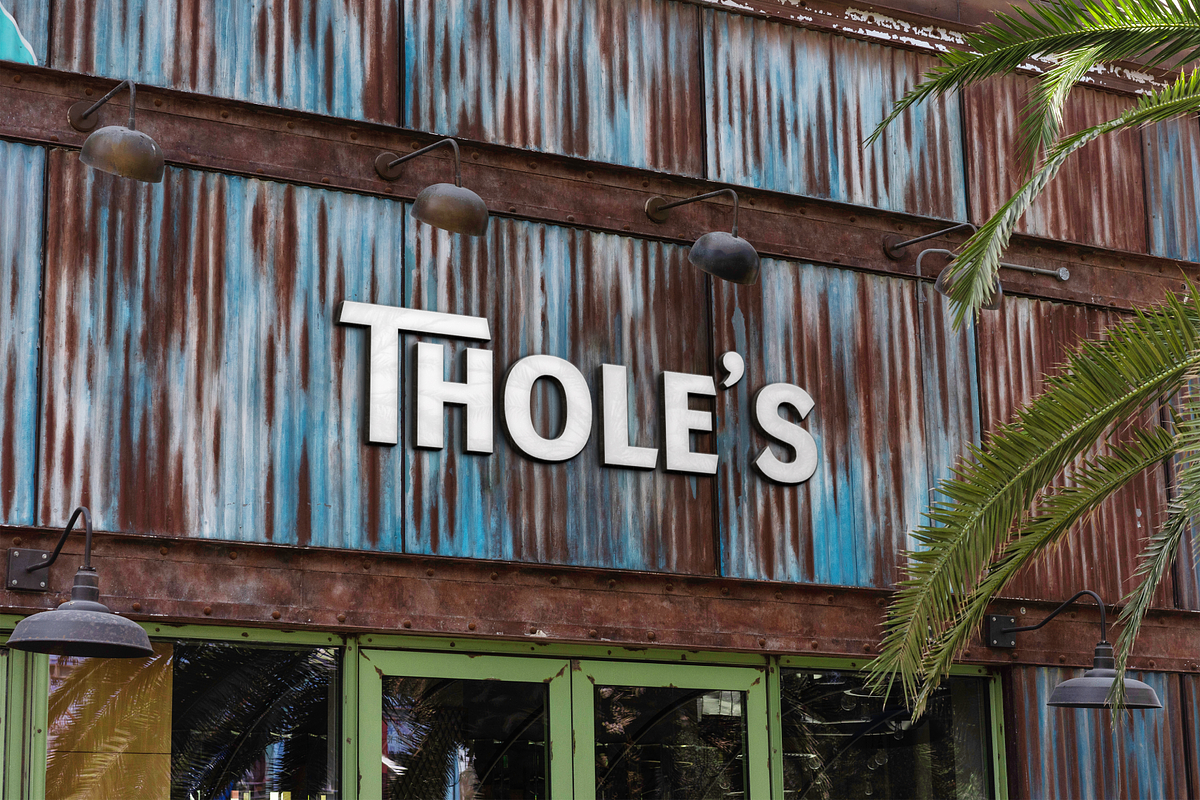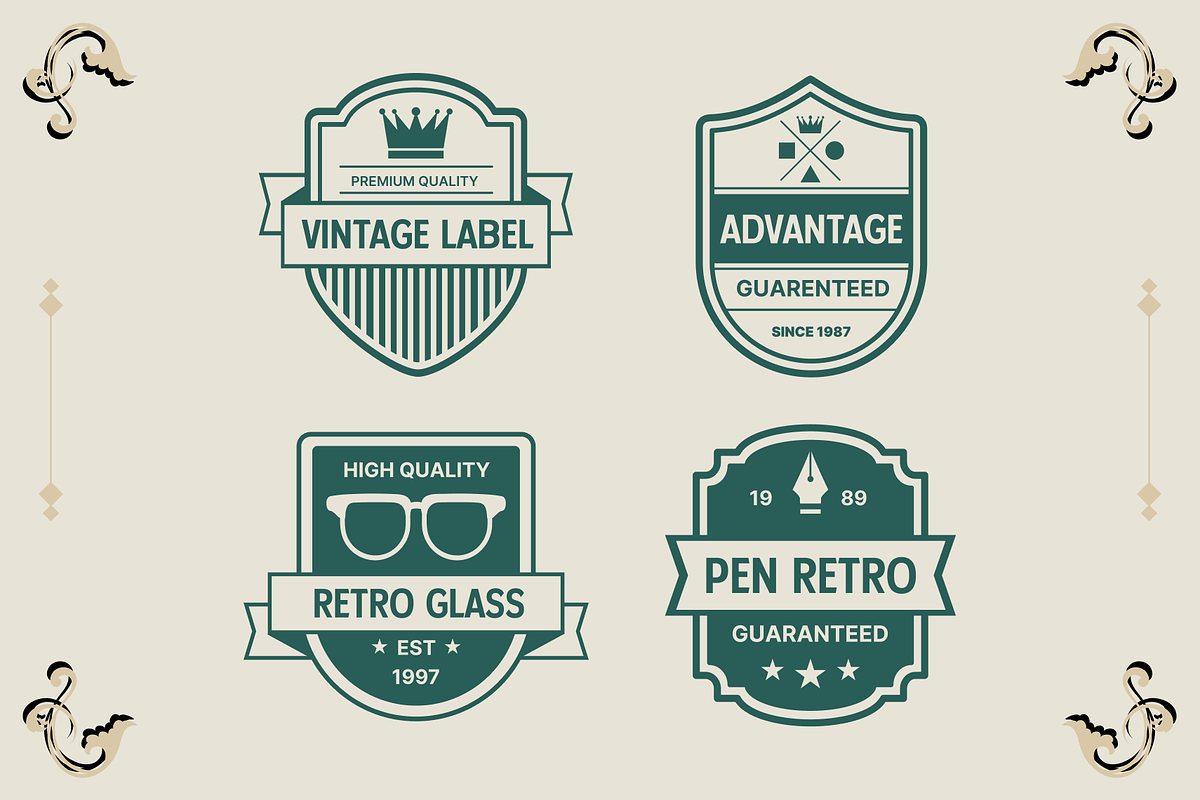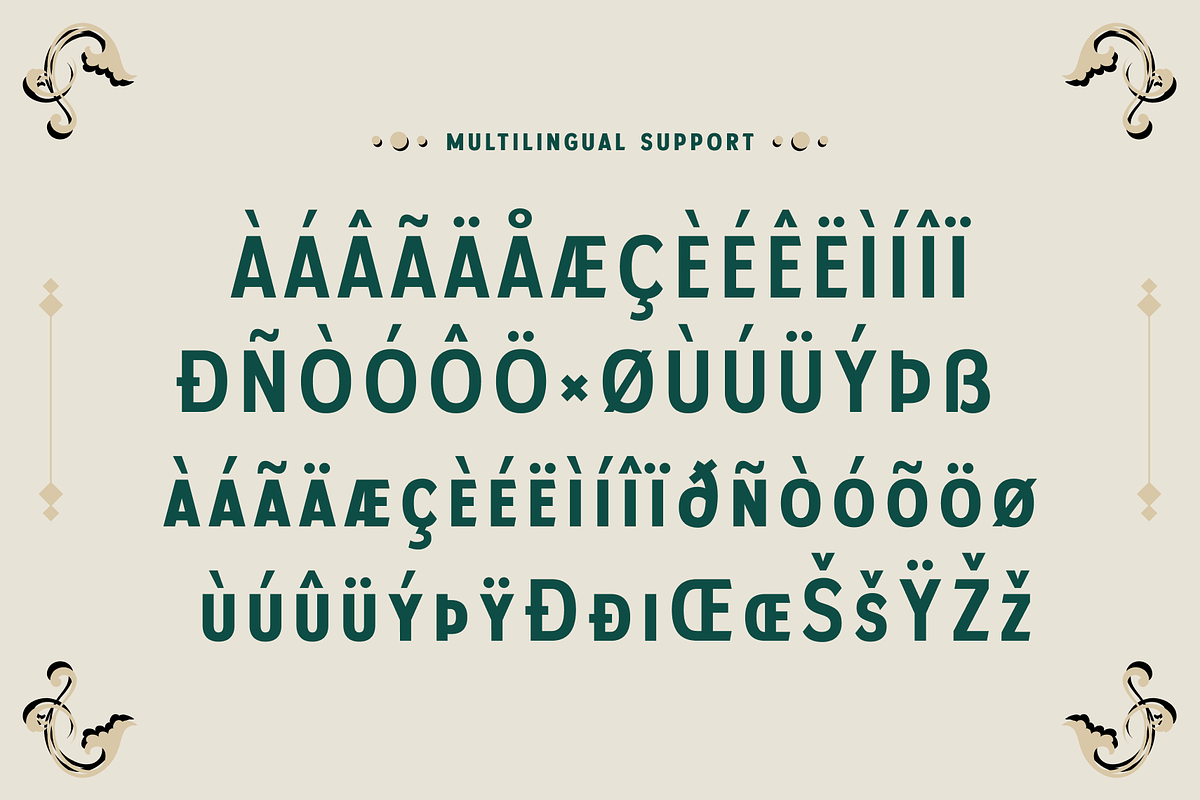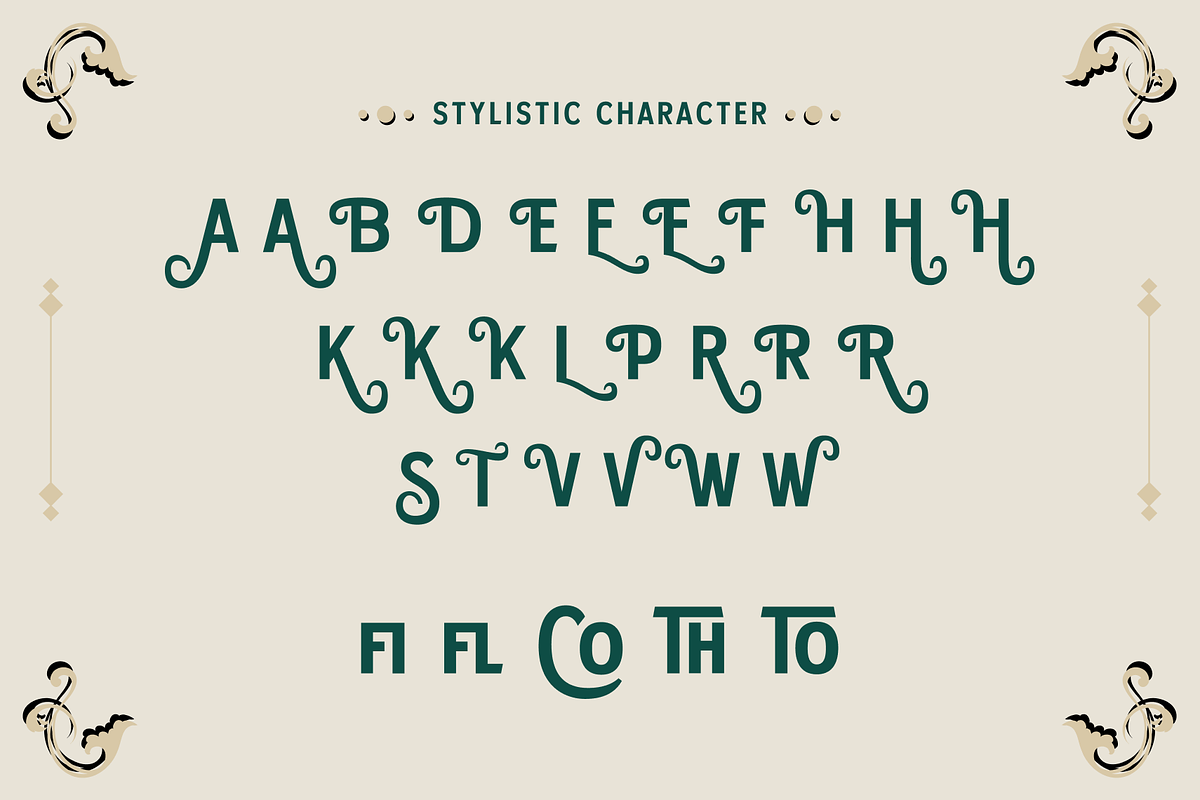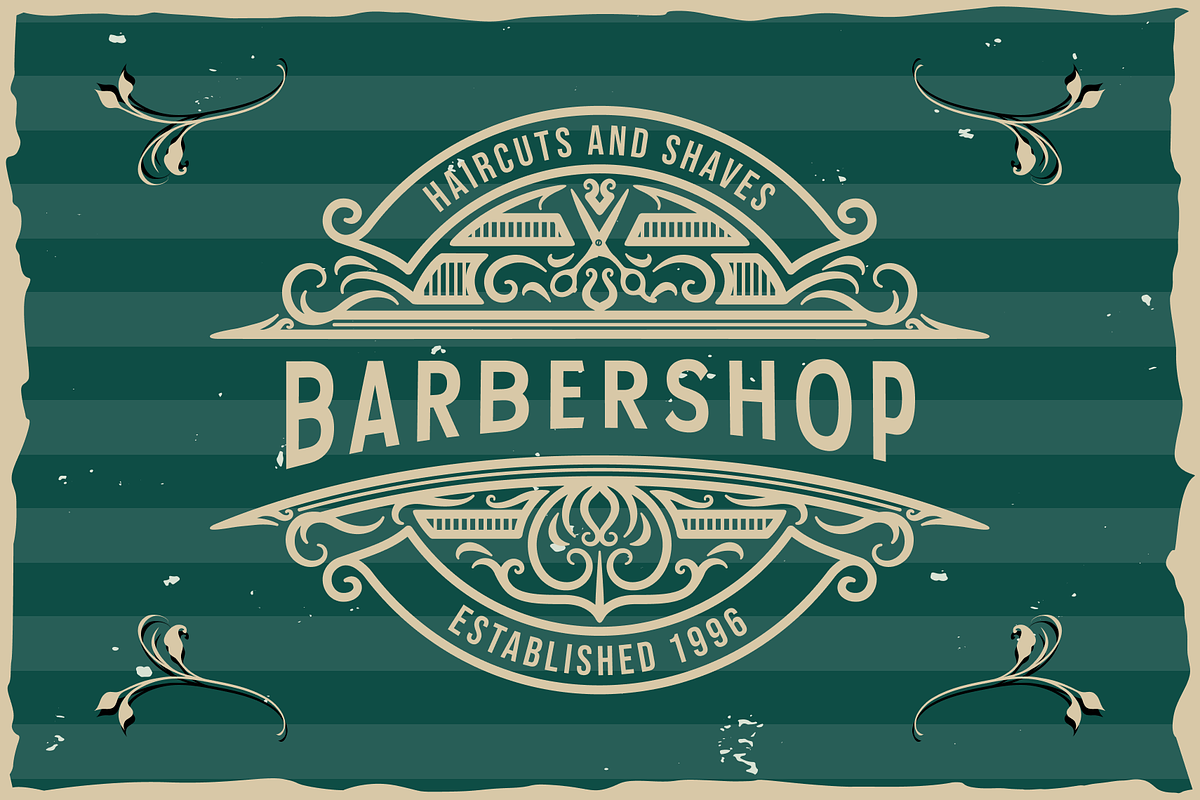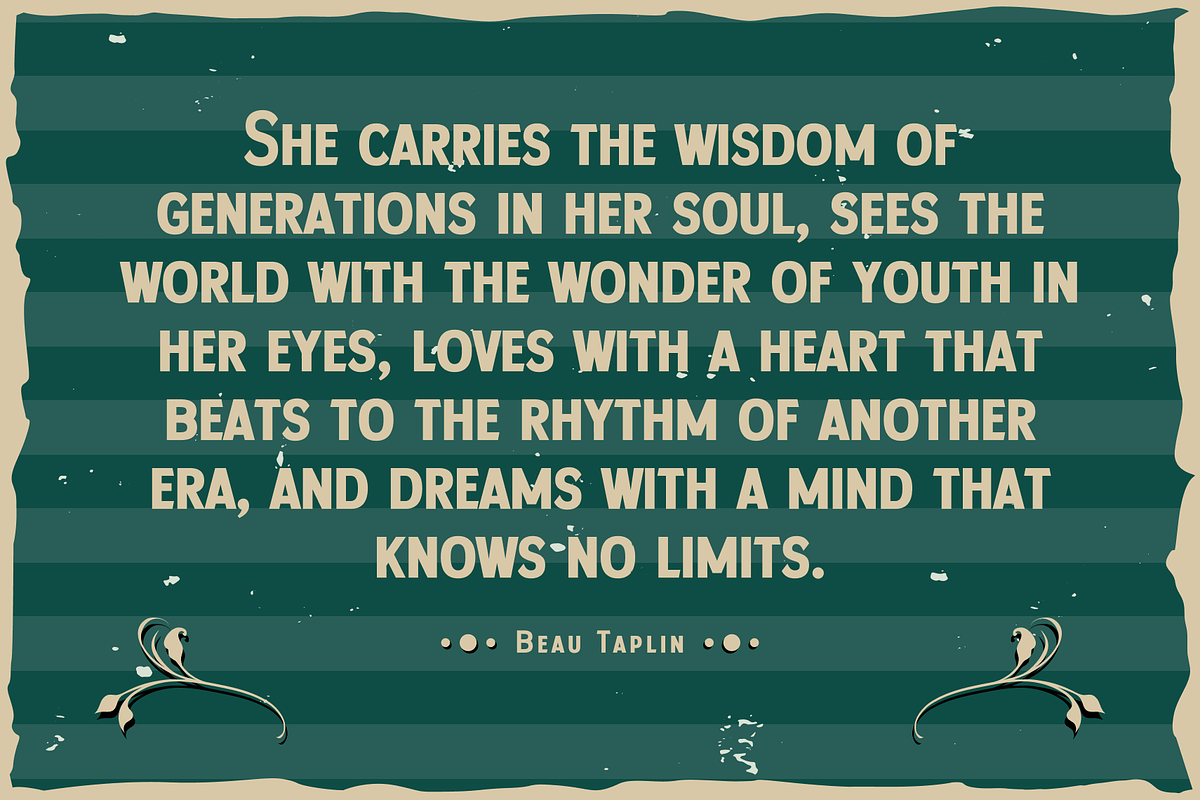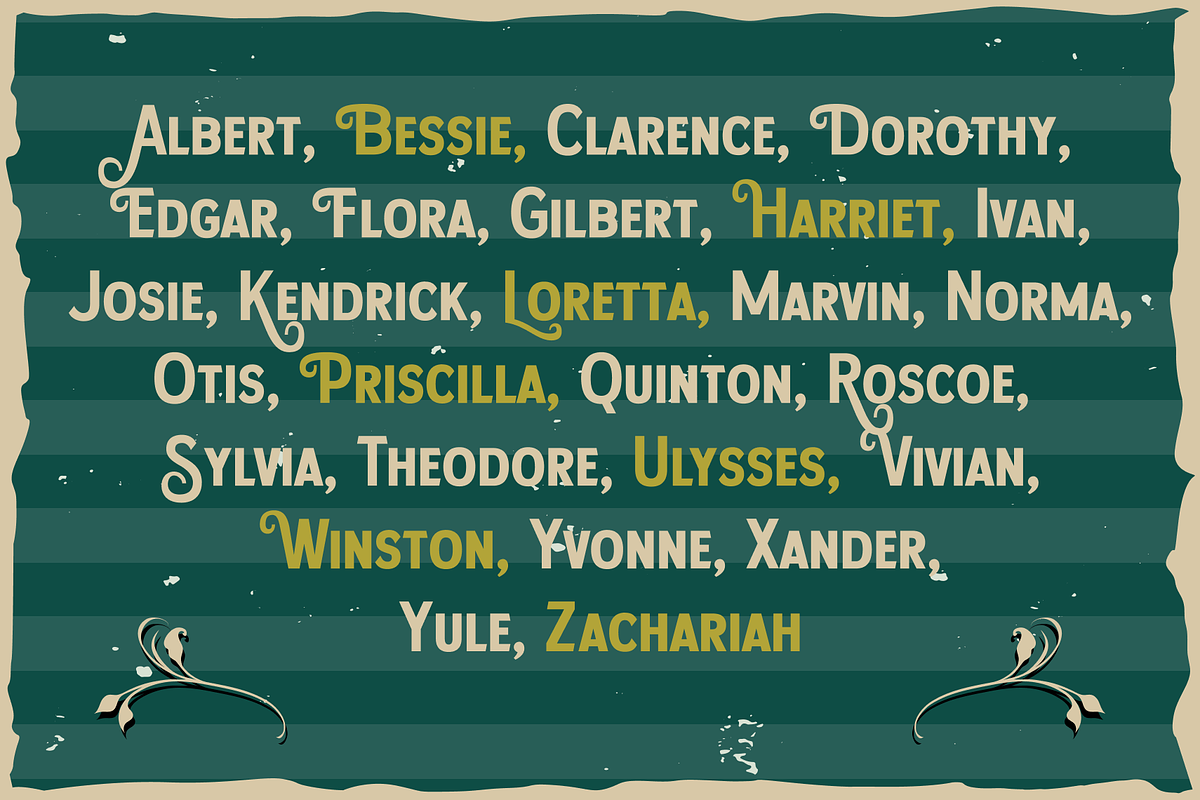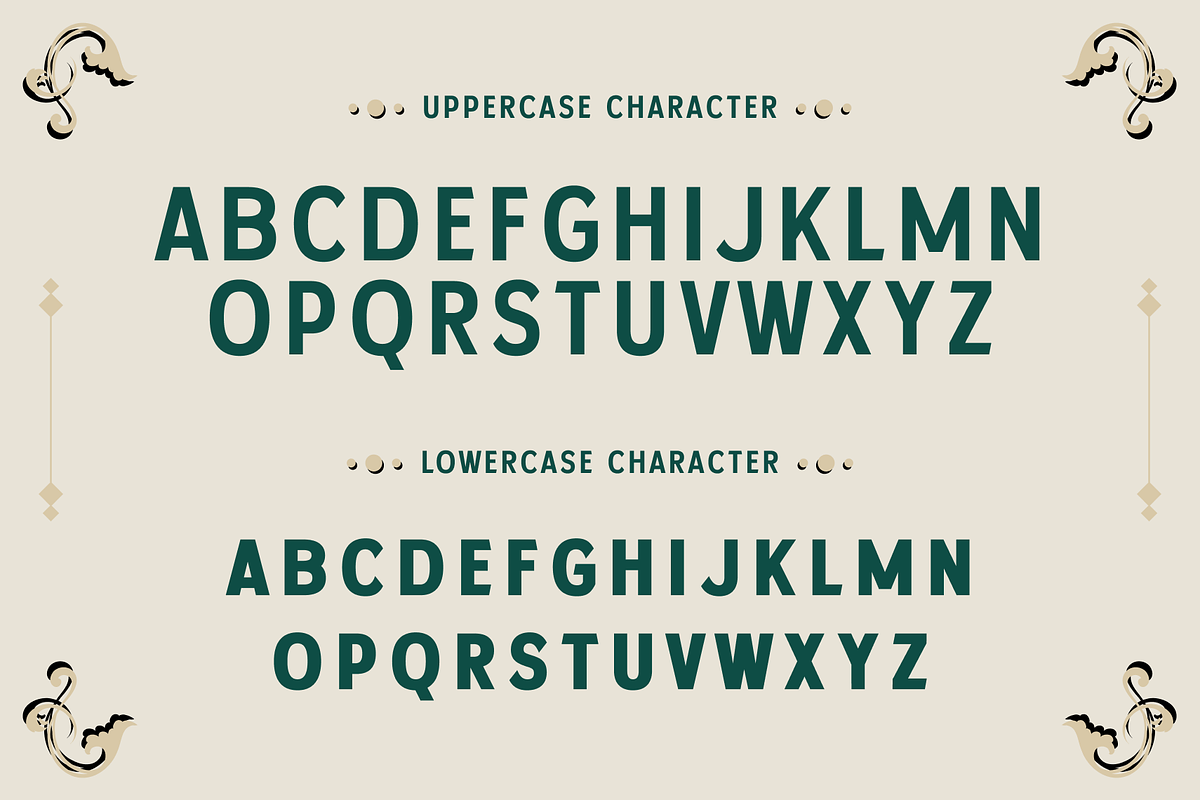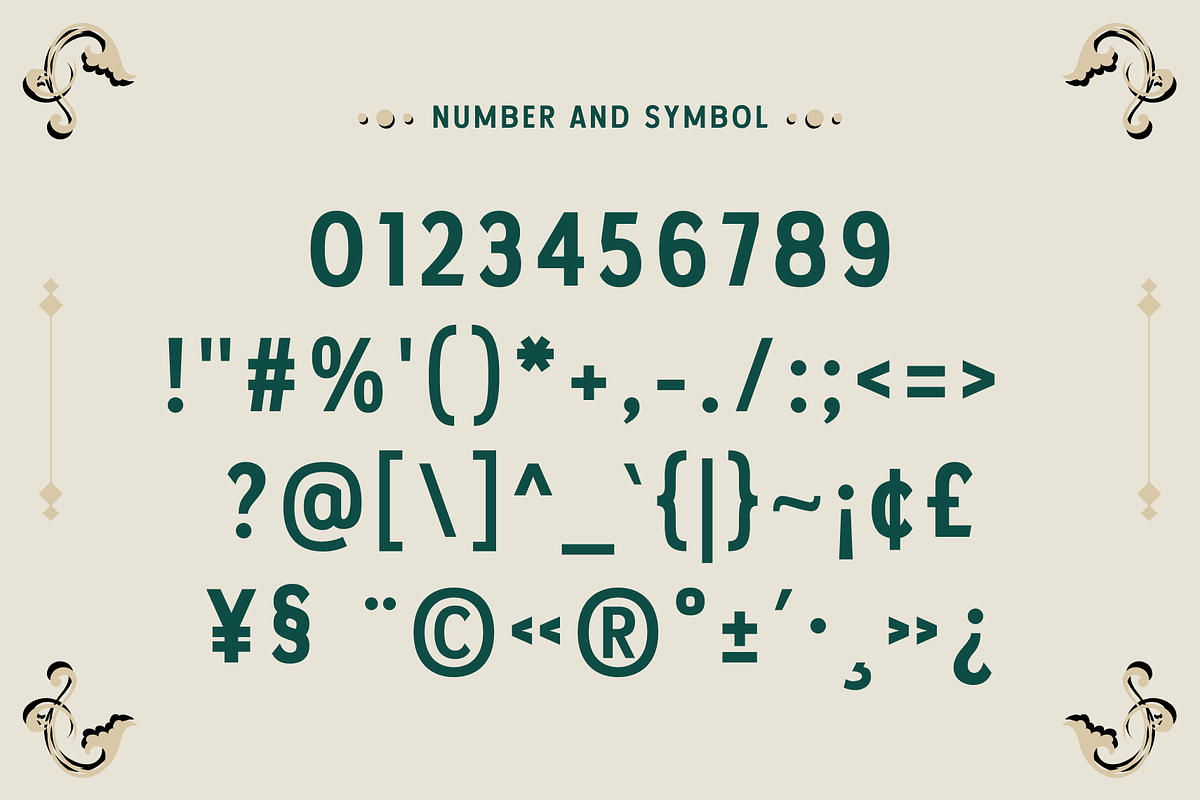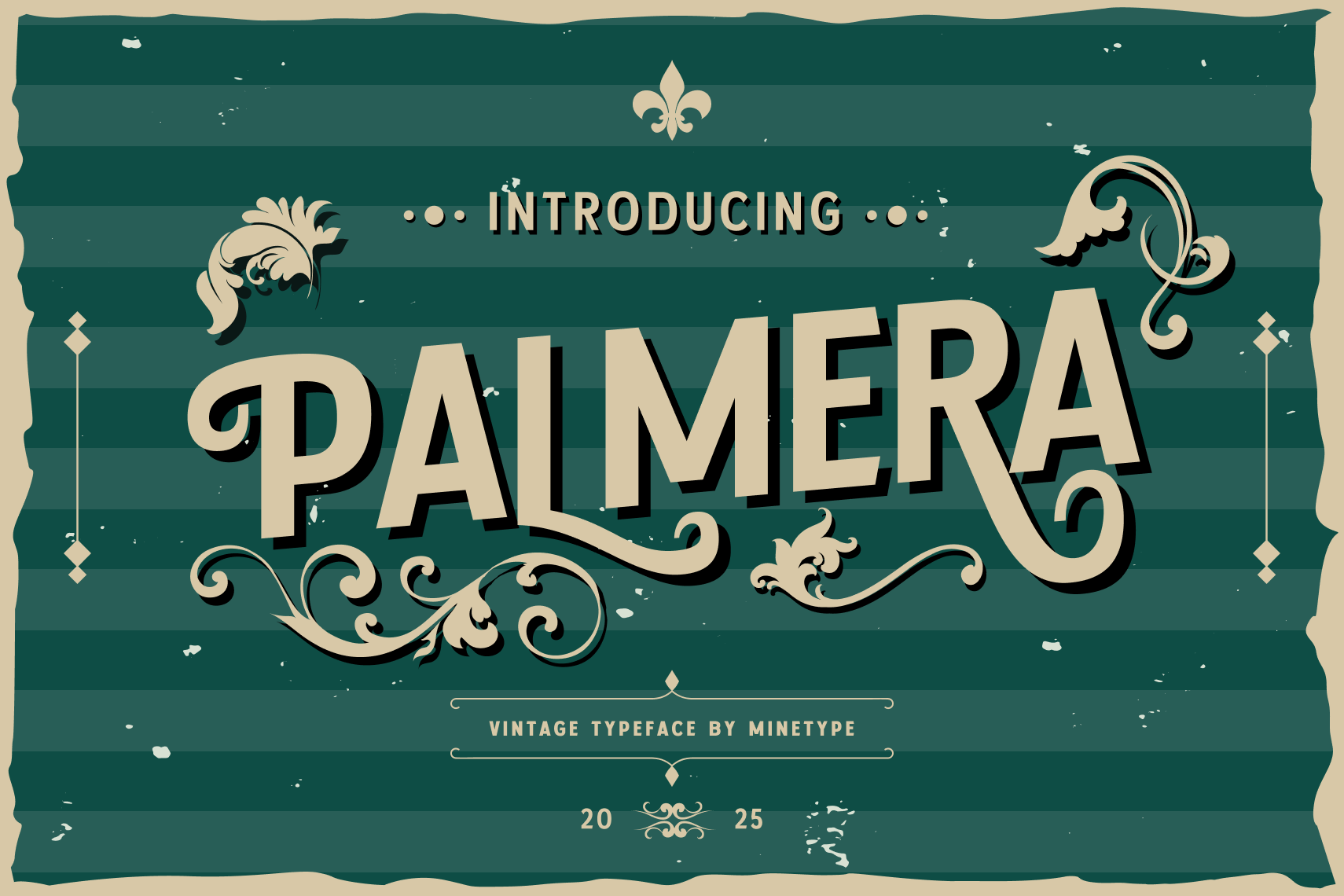
Palmera - Vintage Font
Palmera – Vintage Font
Step back in time with Palmera, a timeless typeface that captures the charm of vintage typography. Inspired by classic signage, retro advertisements, and old-world elegance, Palmera blends nostalgia with sophistication, making it the perfect choice for designs that evoke warmth, tradition, and authenticity.
Ideal for branding, packaging, posters, invitations, book covers, and any project that calls for a touch of vintage flair, Palmera features elegant letterforms, stylish alternates, and refined ligatures that enhance its character and versatility.
- ✔ Uppercase & Lowercase Letters
- ✔ Alternates & Ligatures
- ✔ Punctuation & Symbols
- ✔ Numbers & Multilingual Support
- ✔ OpenType Features
Give your designs a classic, nostalgic feel with Palmera—where vintage meets timeless beauty.